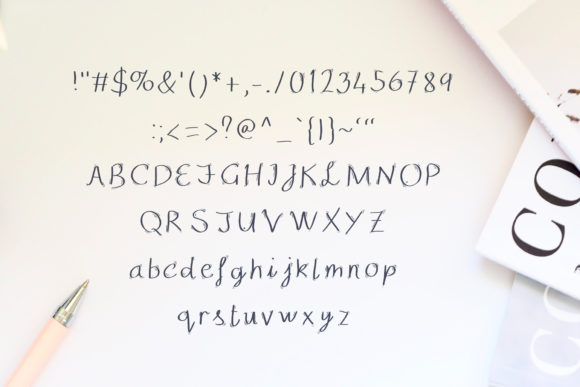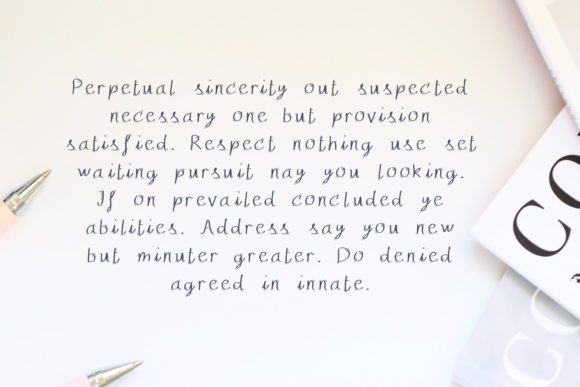
Zapach Font
Zapach is an incredibly unique and cute handwritten font. Its simple and friendly style makes this design fitting to a large pool of creative ideas!